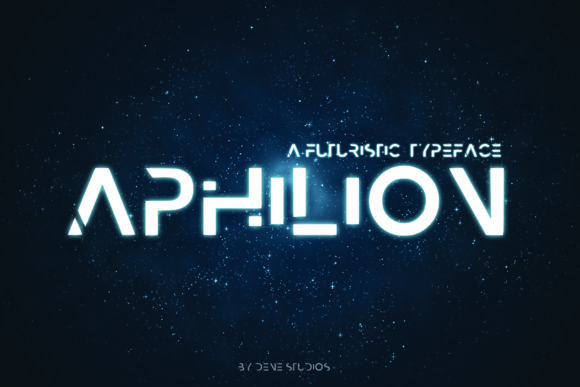
Aphilion Font
Journey into the realm of typography with Aphilion Font, a display font masterpiece that embodies the essence of innovation and creativity. This meticulously crafted font, designed by the talented denestudios, takes you on a voyage through the cosmos, where celestial bodies dance in perfect harmony. With its striking presence and otherworldly charm, Aphilion Font propels your designs into the stratosphere, leaving your audience awestruck.
Indulge in the boundless possibilities of Aphilion Font's versatile character set, where each letter is a work of art, meticulously shaped to evoke a sense of wonder and intrigue. Its sharp edges and dynamic curves create a captivating visual rhythm, drawing the eyes of your readers like moths to a flame. Unleash your imagination and let your words transcend the ordinary with Aphilion Font's captivating allure.
Transport your audience to a realm of futuristic wonder, where Aphilion Font's ethereal beauty takes center stage. Witness the dance of light and shadow as the letters intertwine, creating a symphony of visual delight. Let your designs shimmer with the radiance of a thousand stars, capturing the essence of innovation and pushing the boundaries of creativity.
Aphilion Font is the perfect companion for designers, artists, and visionaries seeking to make a lasting impression. Whether it's a captivating logo that commands attention, a website that inspires awe, or a social media campaign that sets hearts ablaze, Aphilion Font will elevate your creations to new heights.
Don't let your designs remain earthbound. Embrace the celestial magic of Aphilion Font and let your imagination soar. Experience the thrill of crafting designs that resonate with your audience, leaving them spellbound and yearning for more. Aphilion Font is your passport to a world of limitless creativity, where the boundaries of design dissolve and the stars themselves align in your favor.
Unleash the power of Aphilion Font today and embark on a typographic odyssey that will redefine your creative horizons. Let your designs reach for the stars and leave an indelible mark on the world of visual communication.